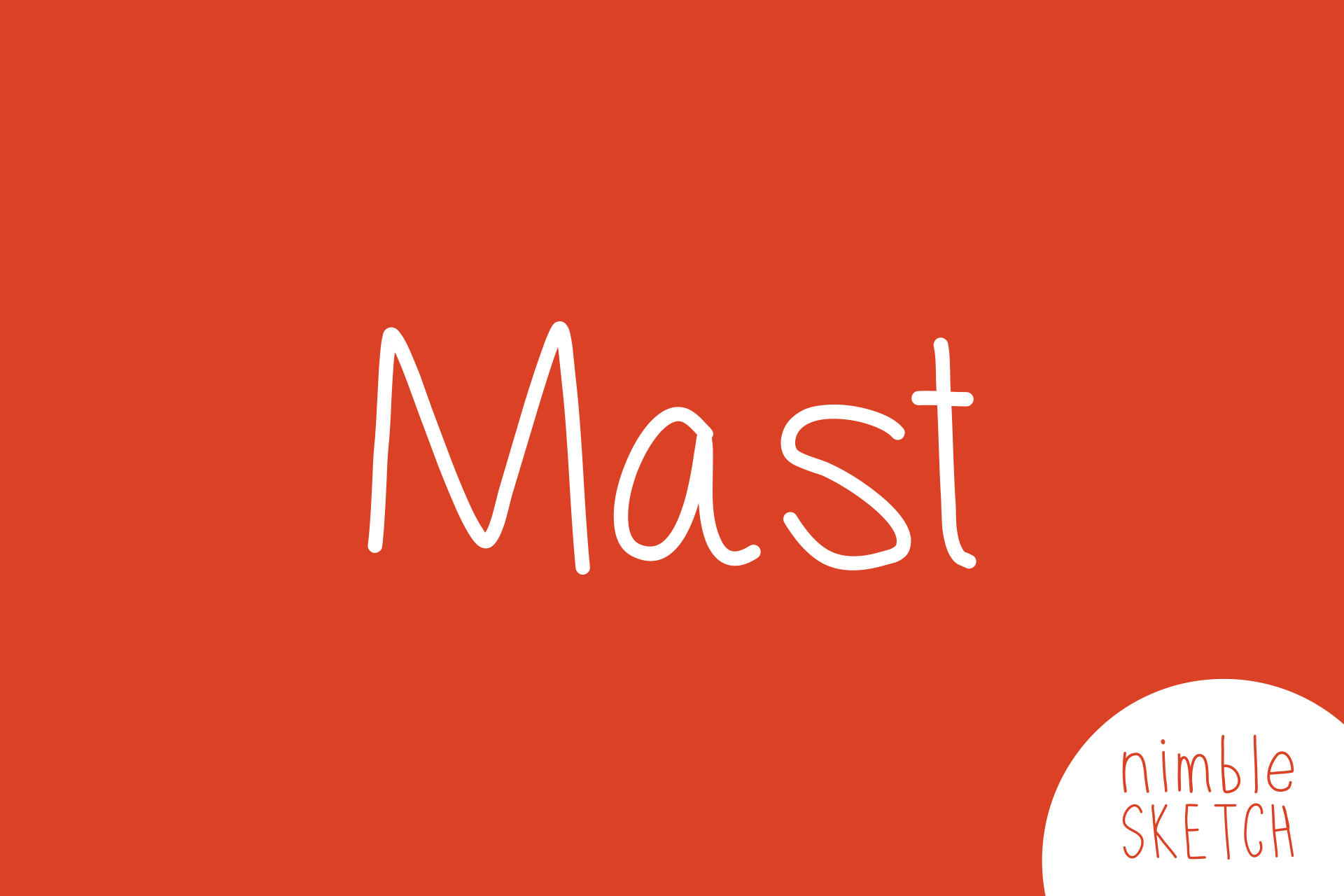
Mast Handwritten Font
Introducing the Mast Font: Perfect for handwritten posters, cards, and more.
You'll get three weights: light, medium, and bold; which all look great on your projects!